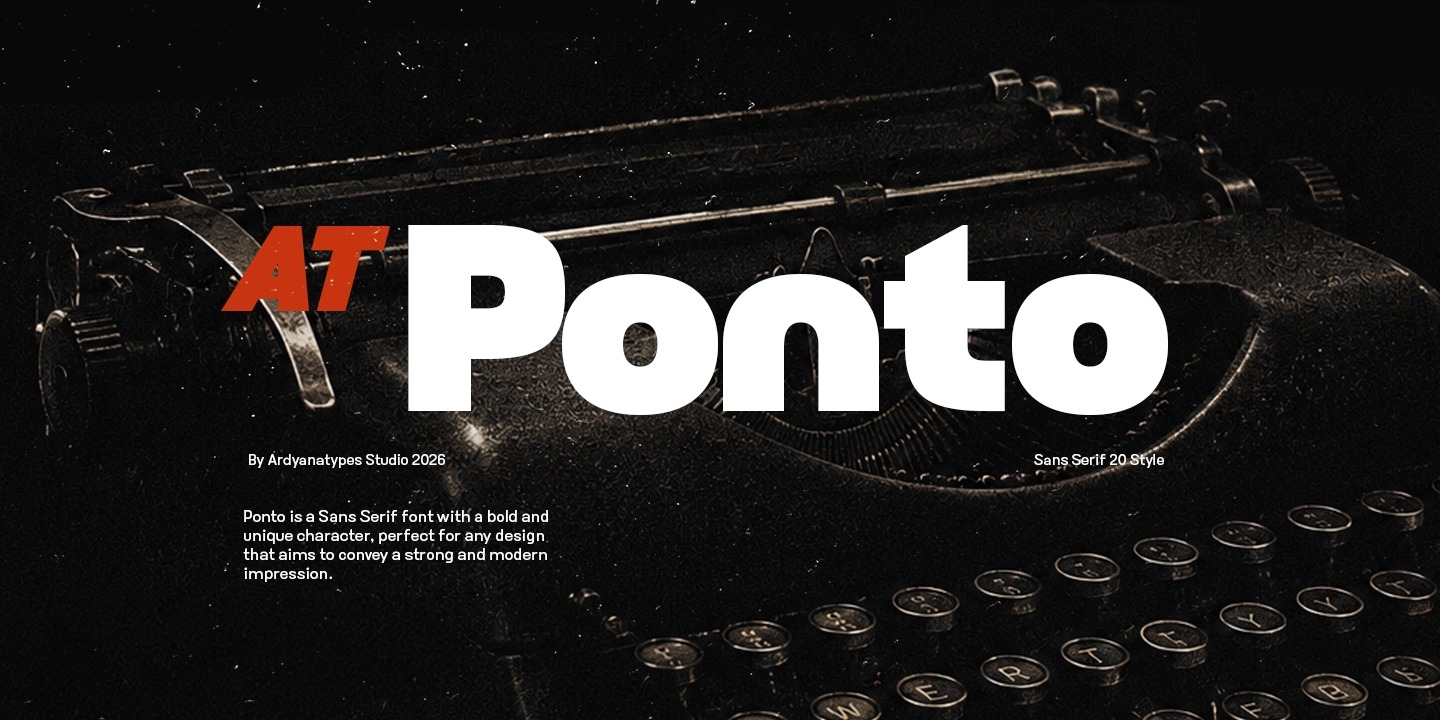
AT Ponto Font
AT Ponto Font is a professionally designed typeface that delivers clarity, structure, and consistent performance across various design applications. AT.Ponto is a modern sans serif family designed to deliver strong visual impact with a clean, confident, and energetic personality. Built with bold proportions, dynamic italics, and modern geometric structure, this typeface is crafted for designers who want their work to feel powerful, contemporary, and instantly attention-grabbing.
With 18 versatile styles ranging from Thin to Black, including matching italics, AT.Ponto offers the flexibility to create everything from sleek minimal layouts to aggressive high-impact headlines. The italic styles are specially designed to create movement and momentum, making them perfect for sports branding, technology campaigns, futuristic visuals, and modern advertising.
Its bold character and compact structure make AT.Ponto especially effective for:
Branding and logo design
Sports and fitness campaigns
Streetwear and fashion visuals
Tech and gaming promotions
Social media content
Editorial headlines
Packaging design
Posters and advertising
Motion graphics and digital content
AT.Ponto combines strong readability with a modern industrial aesthetic, allowing it to stand out across both print and digital environments. The family also includes multilingual support, ligatures, alternates, and a wide range of punctuation symbols to support professional creative workflows.
Whether you’re building a bold identity system, designing futuristic campaigns, or creating modern visual content with strong personality, AT.Ponto is designed to help your typography feel fast, impactful, and unforgettable.